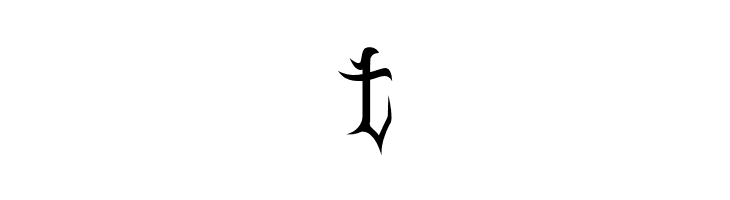
A spooky, decorative font with vine-like embellishments, perfect for Halloween themes.
A bold, dynamic script font with fluid strokes and a sense of movement.
A dramatic, Gothic-inspired font with sharp, angular lines and intricate detailing.
A bold, angular font with a futuristic, geometric style.
A bold, geometric 3D font with sharp angles and a futuristic look.
A bold, 3D italic font with a futuristic and dynamic style.
A bold, geometric, and condensed font with sharp angles.
A bold, geometric, and italic font with a futuristic and aggressive style.
A bold, expanded, and italicized font with a futuristic and angular design.